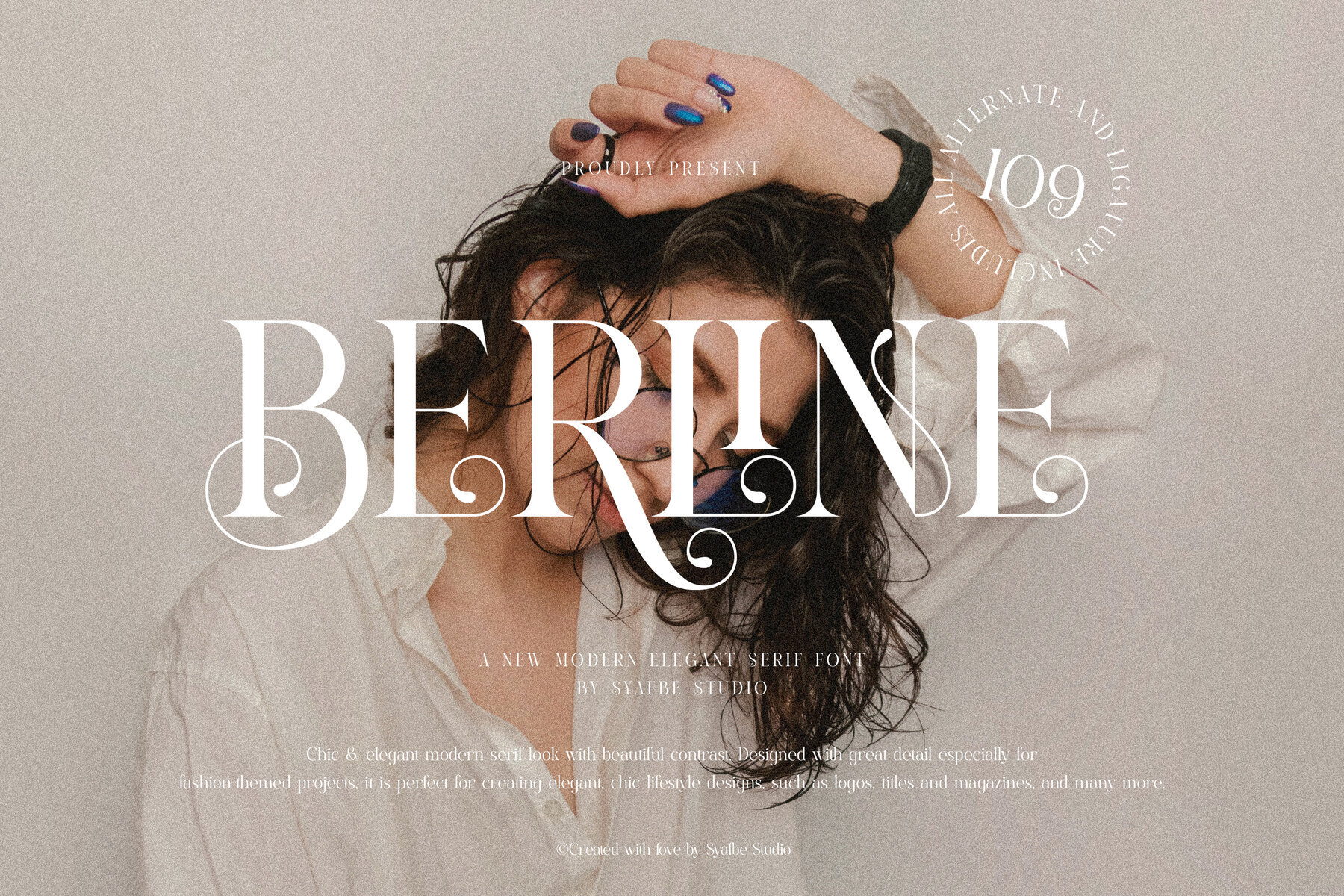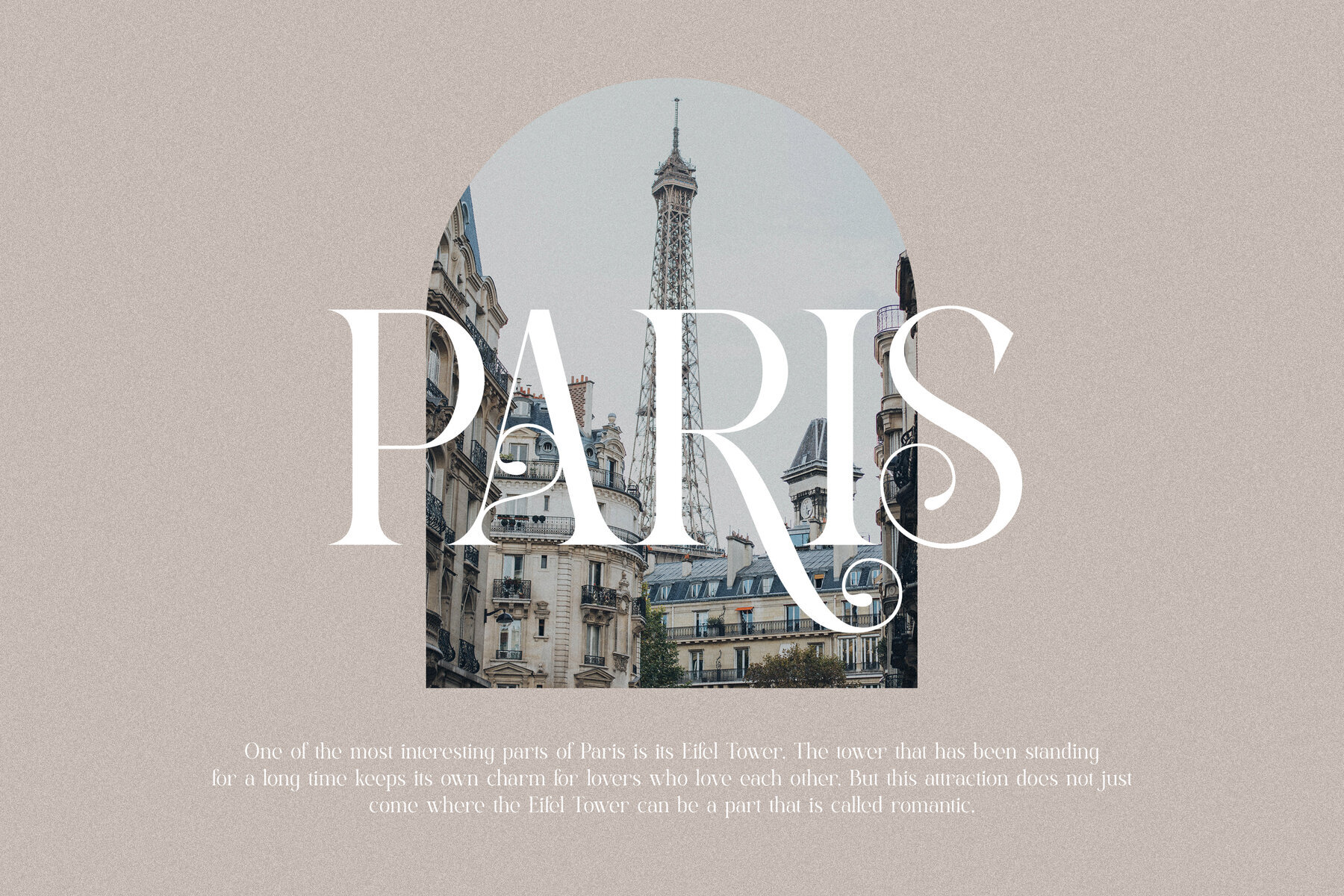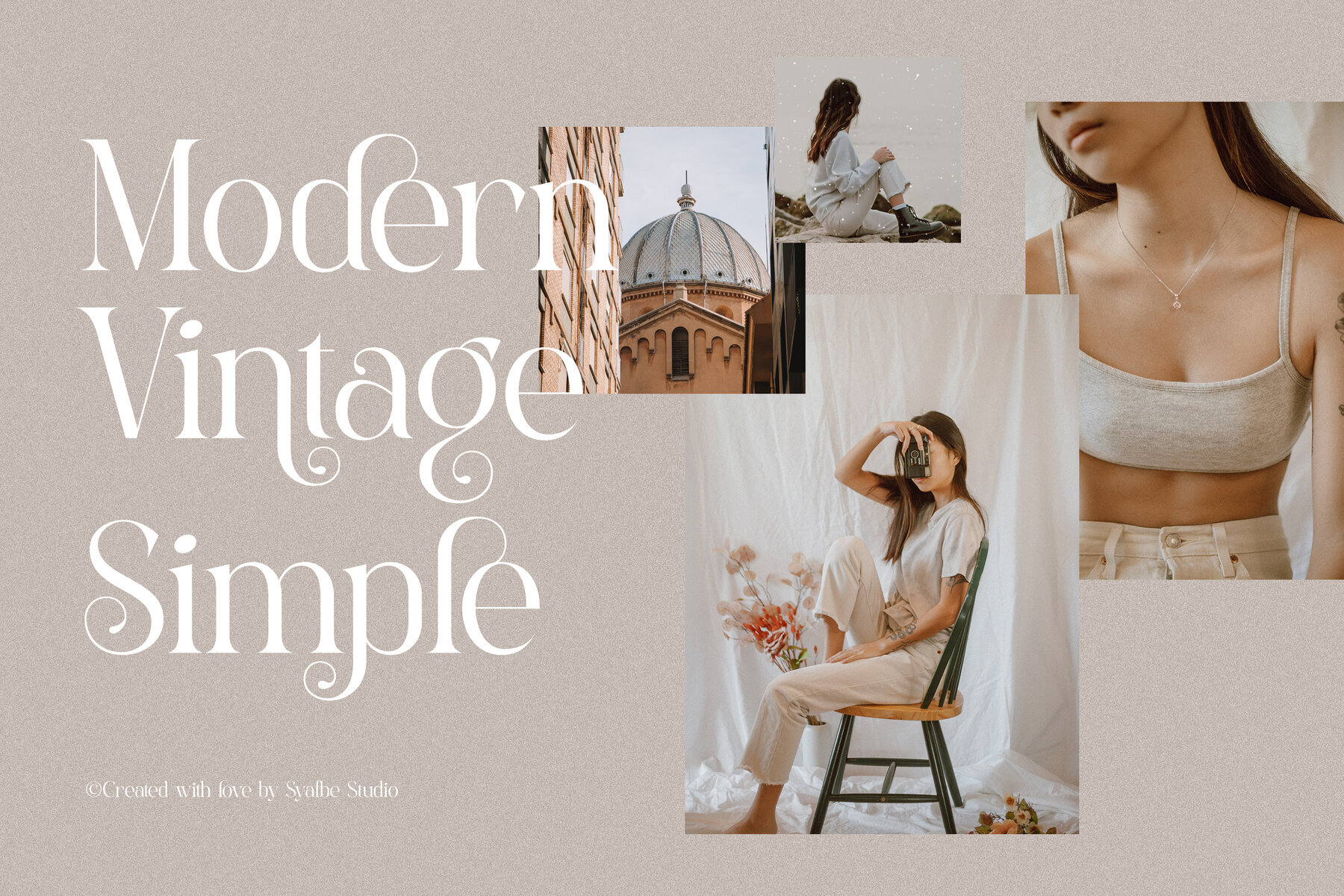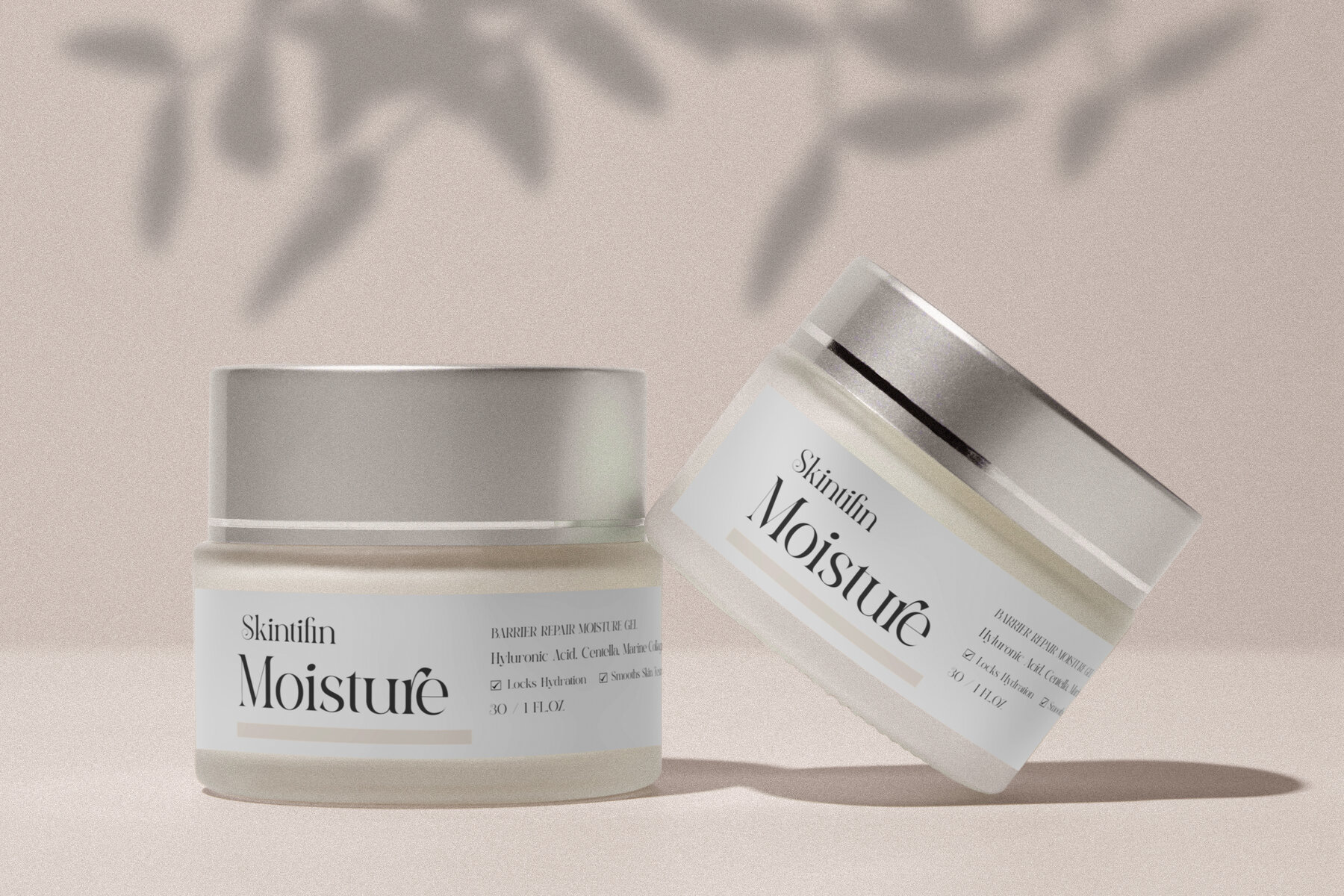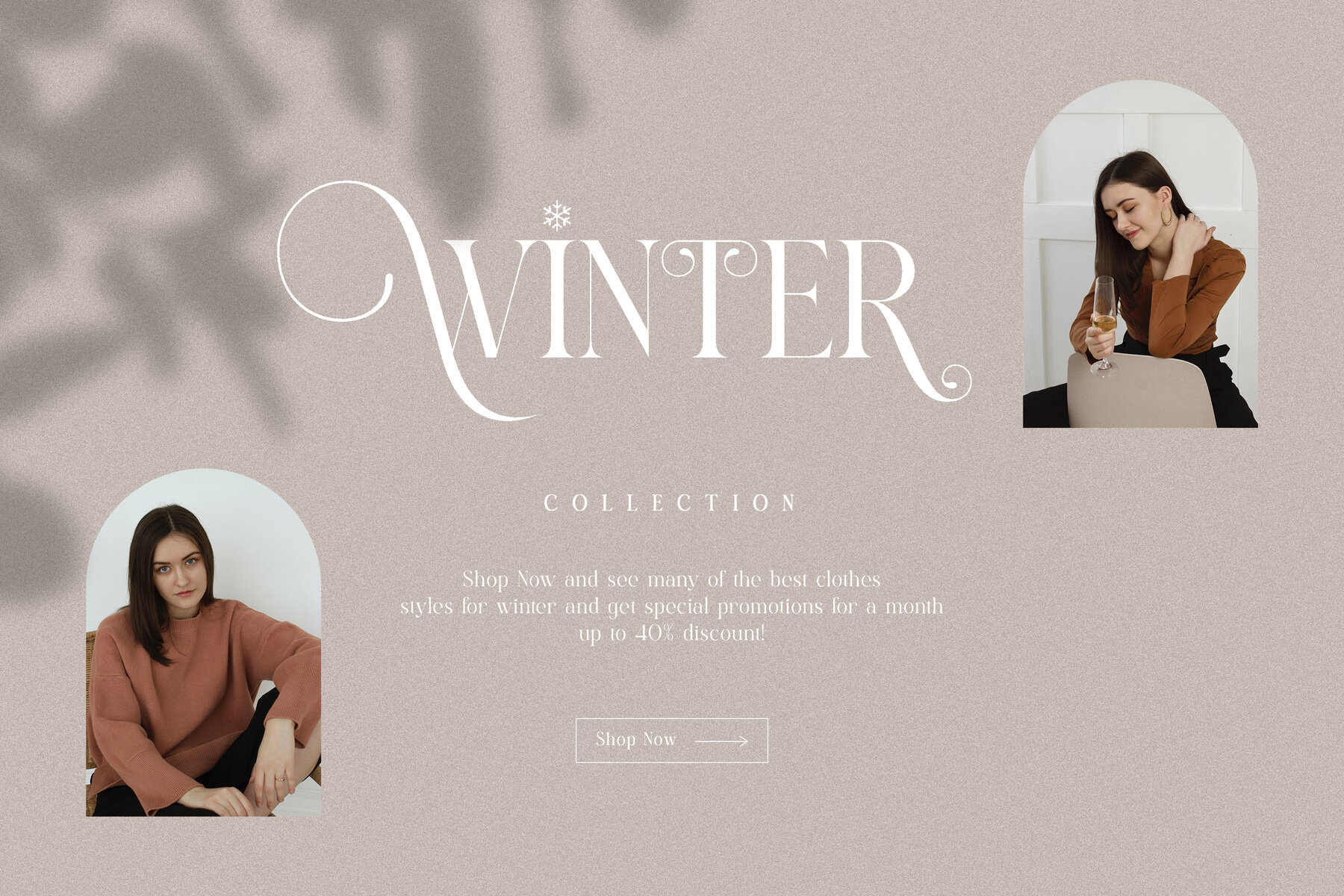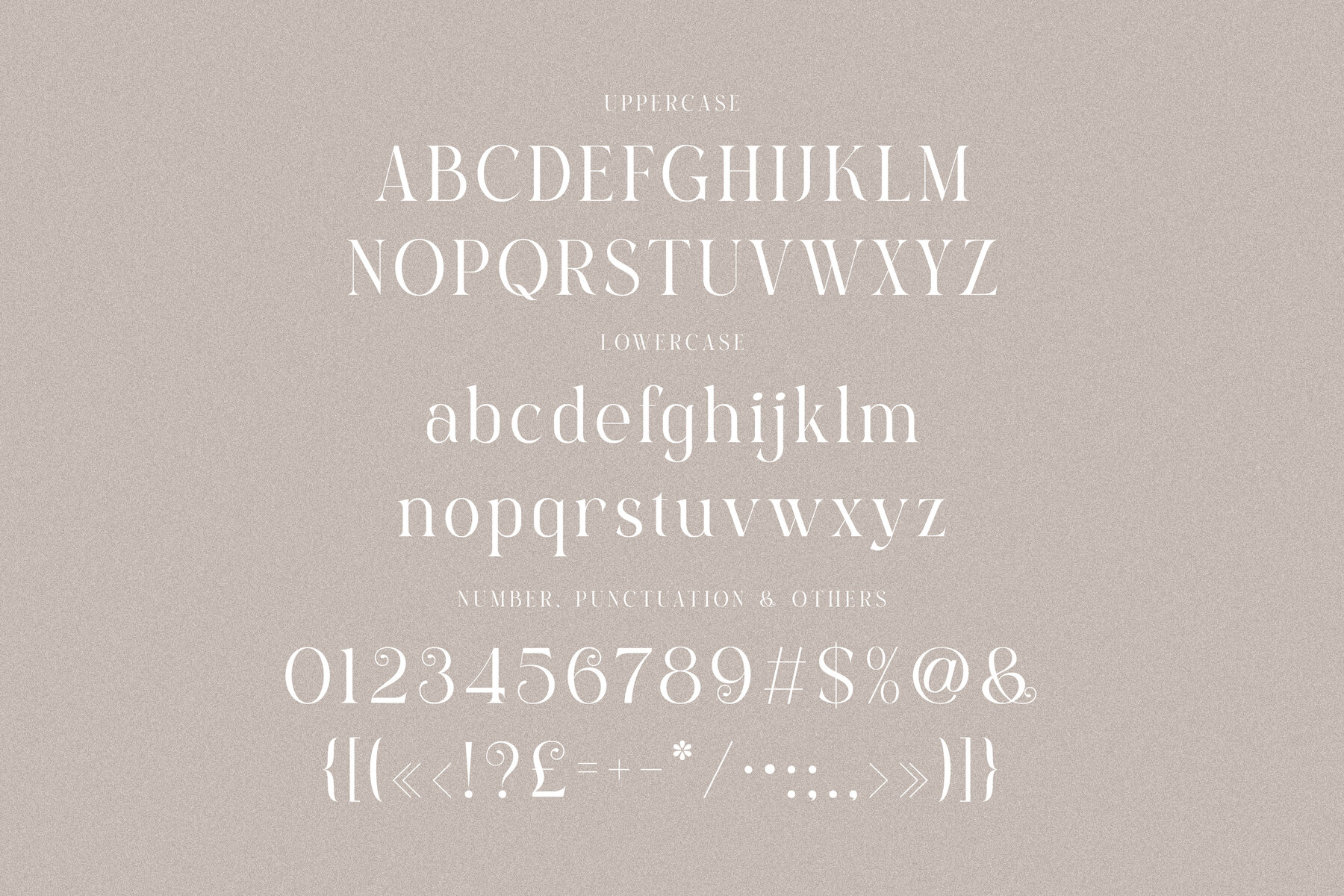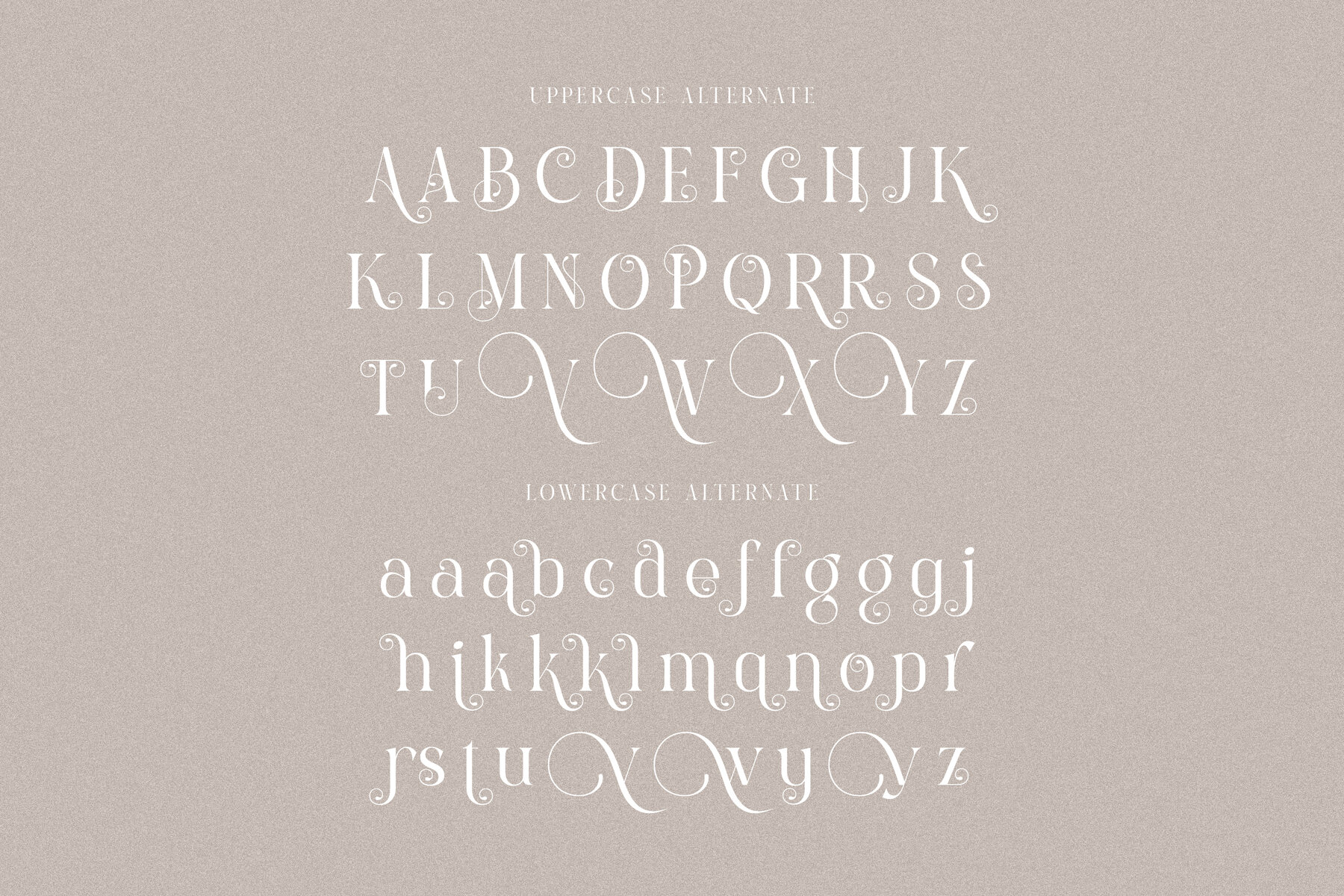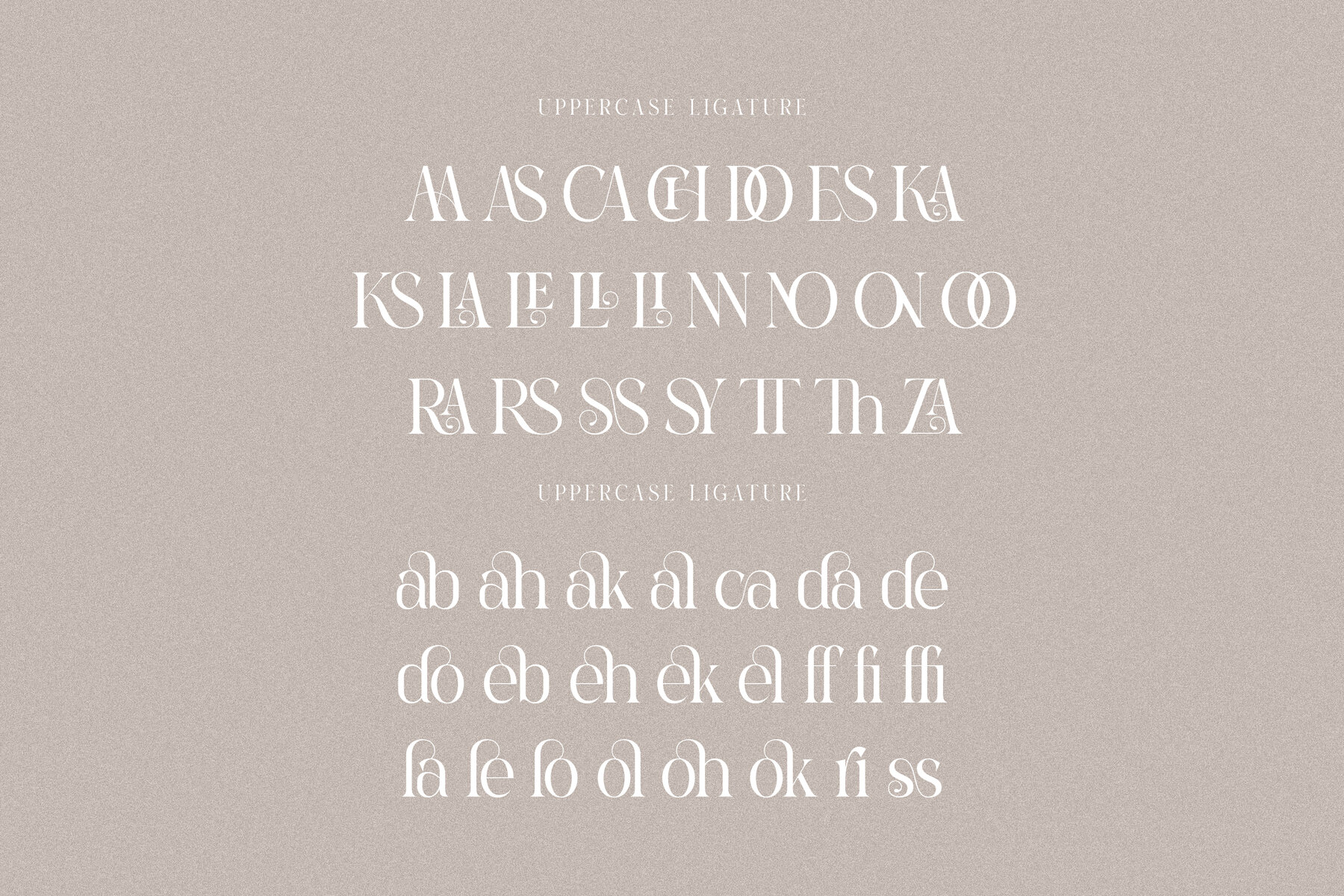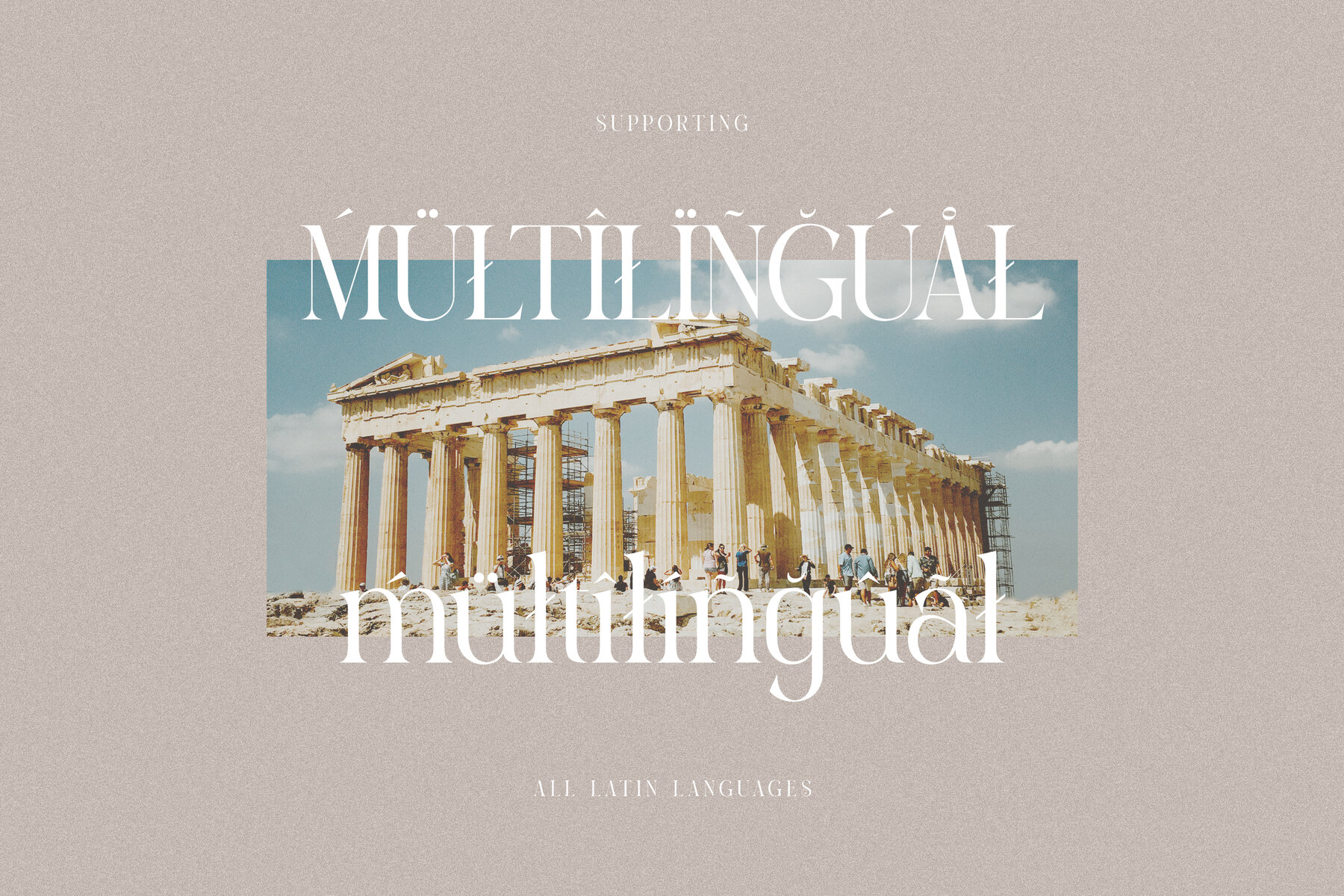
Berline Font
Berline
Berline is a font influenced by the captivating beauty of batik motifs, which are renowned for their deep symbolism and intricate design. This font harmoniously fuses traditional and modern elements, emulating the aesthetic allure and philosophical depth typically seen in batik art. The intricate curves and detailed ornamental aspects of Berline reflect these motifs, offering an elegance steeped in cultural heritage.
Just like batik, which narrates the identity and stories of its regions, Berline showcases a unique character that bridges local essence with an international flair. It's an ideal choice for designers seeking to create works that not only catch the eye but also honor the richness of tradition and culture. This font is perfectly suited for projects that value the beauty and significance of cultural heritage.